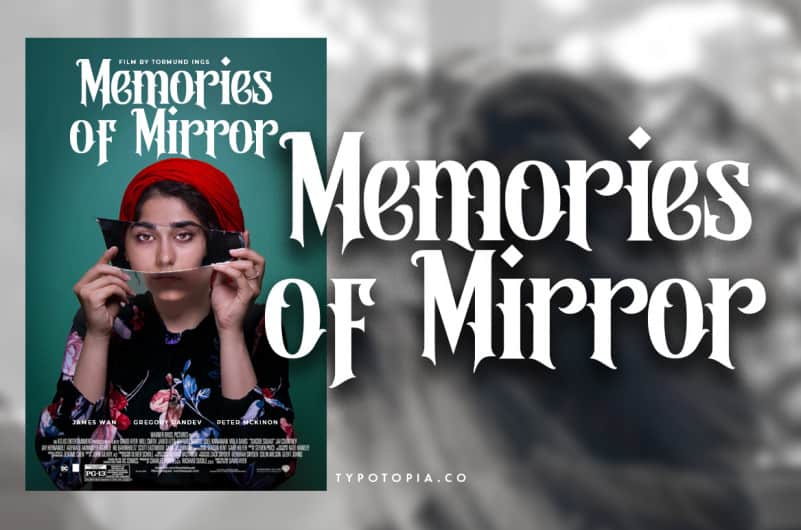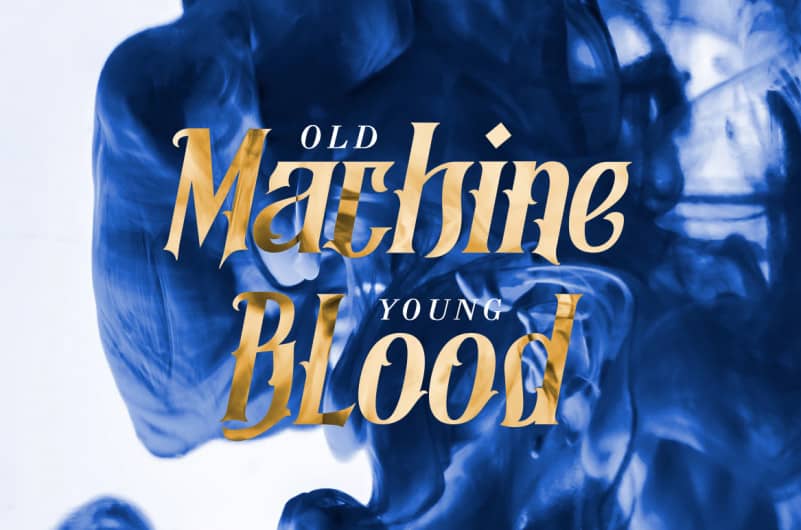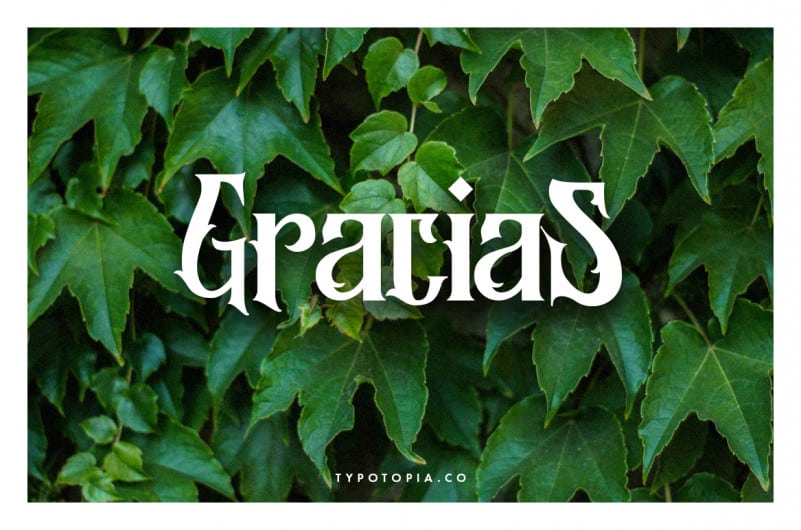
Introducing, Morgana Display Font, a lovely Display Font that bring Natural feel. this Font that inspired by lettering from the good old past, but it still has a strong modern appearance.
Morgana Display Font is the great choice for several purpose, it suitable for for headline, logotype, apparel, invitation, branding, packaging, advertising etc.